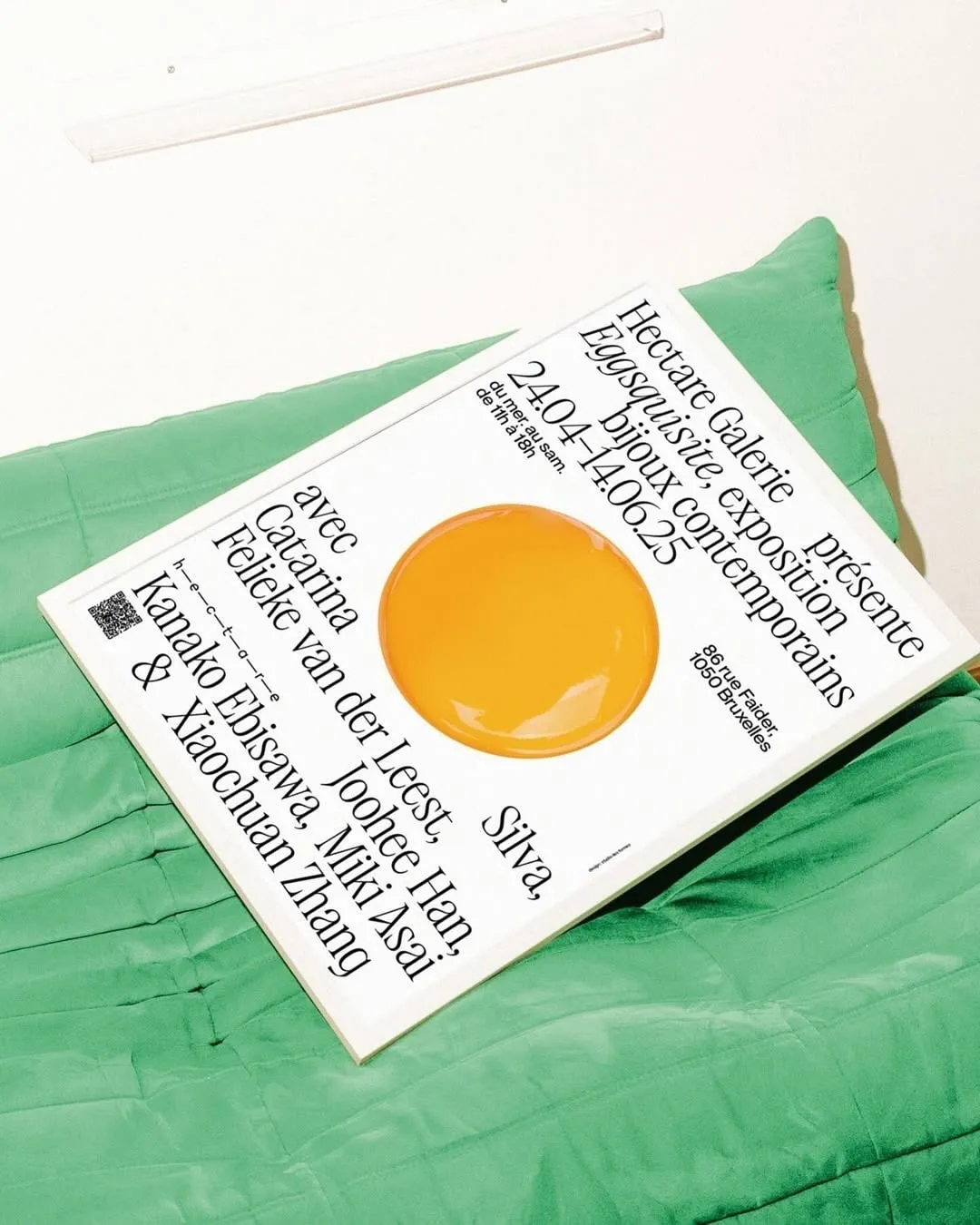
Collapse
Collapse is an austere and melancholic condensed serif, crafted with an air of stark pessimism. Loosely inspired by the iconic serif typeface seen in the opening titles of Neon Genesis Evangelion, it draws upon the haunting atmosphere of that series while quickly diverging into something more expressive, more severe.
This typeface embodies a tension between restraint and rebellion, its sharp edges and compressed form evoking an unsettling beauty. Collapse plays with the contrast between elegance and intensity, making it ideal for projects that demand both sophistication and a sense of underlying urgency.
From its lighter weights, which whisper with a delicate elegance, to the heavier, more aggressive strokes that command attention, Collapse offers a versatile range of moods. Whether used to capture the quiet, somber undertones of a reflective piece or to evoke a harsh, almost confrontational sense of alertness, this typeface doesn't merely convey words; it communicates emotion. Each letterform feels both rigid and fragile, as if balanced on the edge of collapse, perfectly reflecting the themes of transience and entropy.
Ideal for editorial work, posters, or titles that demand a bold and evocative presence, Collapse is more than just a font—it’s a statement, a reflection of the delicate balance between structure and decay.